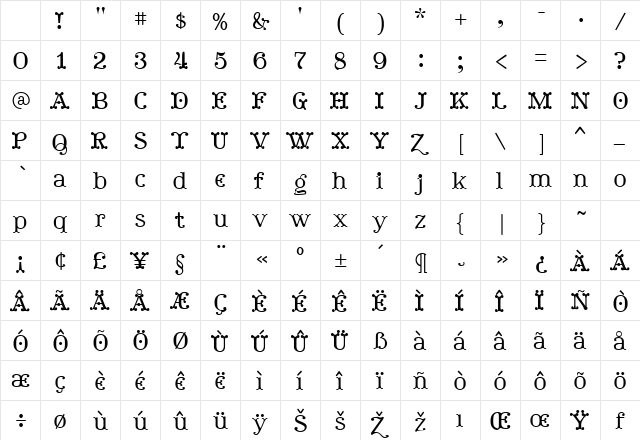
Marshall Regular
Design Context for Marshall
Marshall is a composed and adaptable typeface that performs quietly and consistently across a wide range of design contexts.